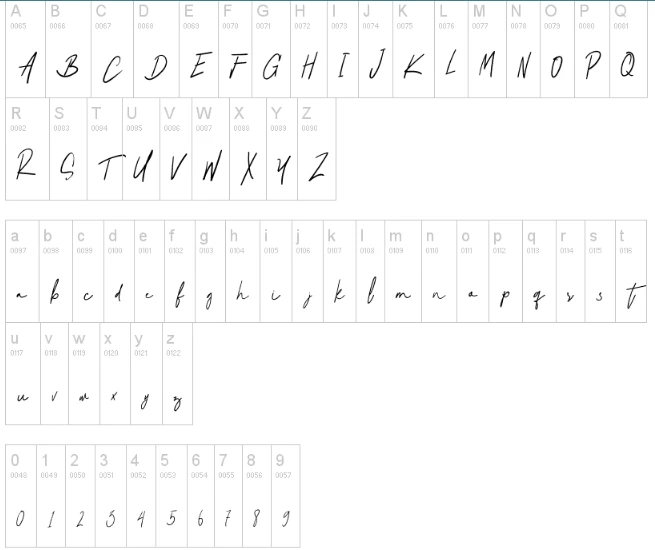
Natural Signature Font-Download Free
Natural Signature is a beautiful and organic script with a distinct vibe. You’ll fall in love with its original and lively design! Agniardi designed and shared the font. It has uppercase and lowercase letters, numerals, punctuation, symbols, and multilingual support. Natural Signature is a signature natural style script and handwritten font. This Font is PUA encoded as well, which is a fantastic feature. Converting this gorgeous Script and handwritten font to a web font is specific.
The natural Signature font is appropriate for handcrafted designs, social media, texts, posters, fashion, logos, branding, photography, invites, commercials, quotes, and other business-related projects. This handwritten and beautiful script font is perfect for any creative project, such as a watermark on photos or quotations.